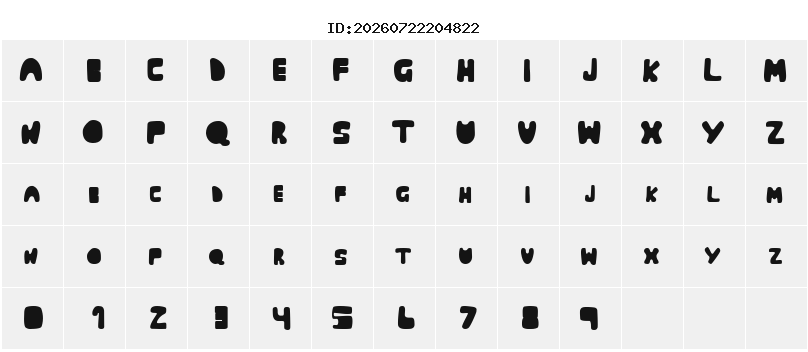
• Font Name: Muringa
• Full Font Name: Muringa
About Muringa.ttf
Muringa.ttf is a modern, elegant sans-serif font designed for ultimate readability and visual harmony. Perfect for branding, headlines, web design, and print materials.